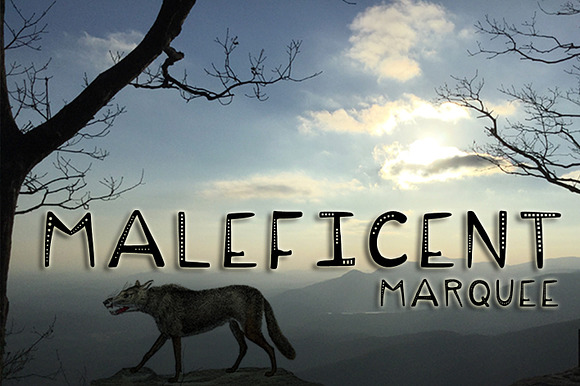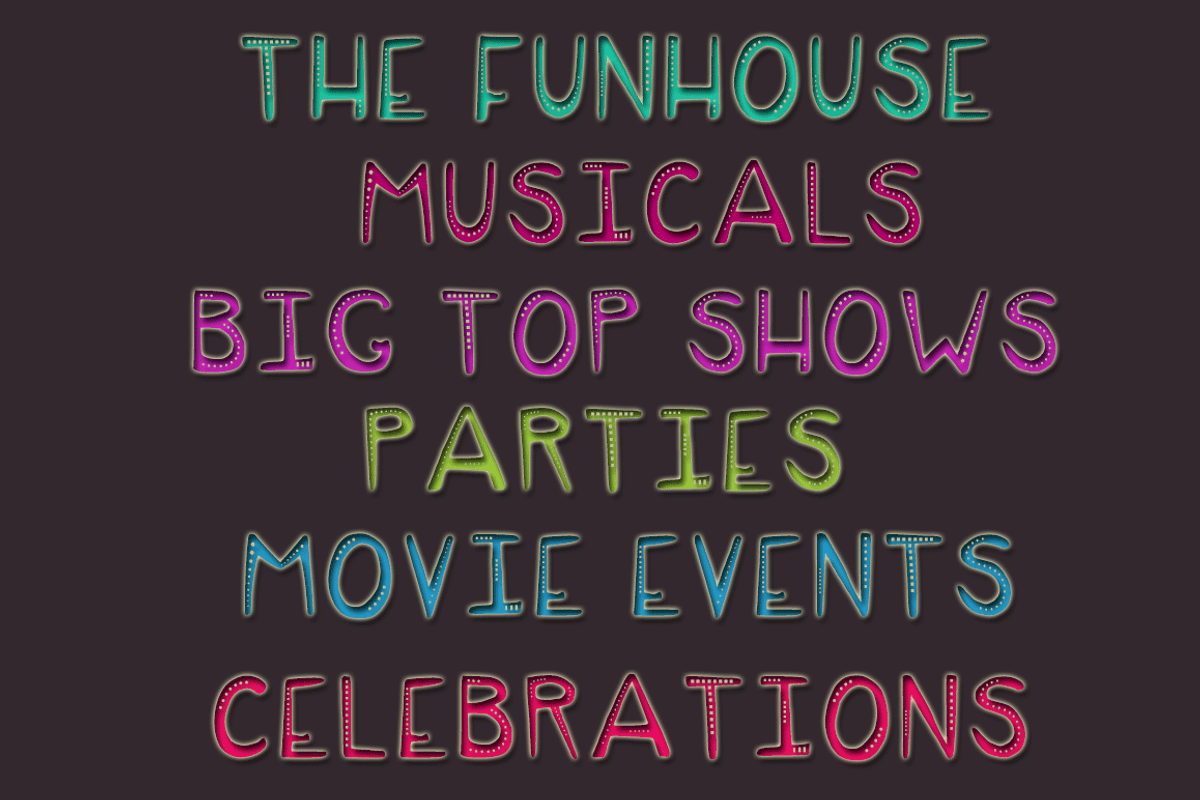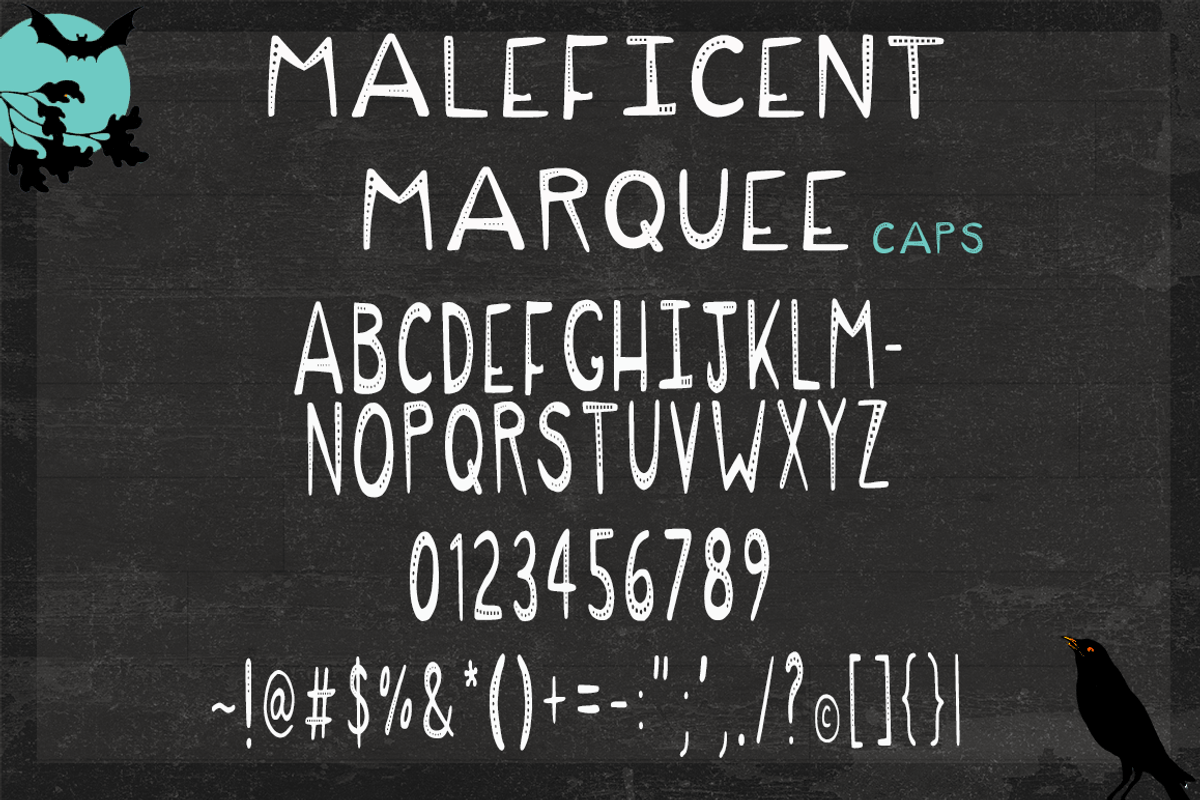
Maleficent Marquee Menacing Typeface
Maleficent Marquee is a sometimes menacing but always fun hand sketched Caps display font.
It pairs perfectly with both bold and script fonts.
Included: Uppercase alphabet, numbers and characters as shown in image 2 preview.